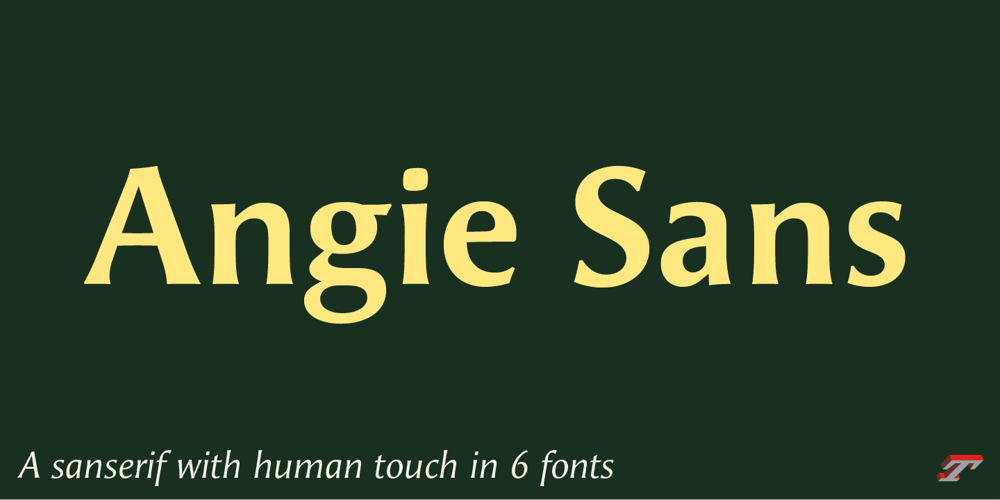
Angie Sans Std
Angie Sans Std font
Angie Sans Std Font Family was designed by Jean François Porchez and published by Typofonderie. Angie Sans Std contains 6 styles and family package options. A sanserif with human touch in 6 fontsAngie Sans is a low contrast incised sans serif sharing some similarities with Optima by Hermann Zapf and Pascal by José Mendoza, both created at the end of the 50’s. The later, feature an italic not published by the initial foundry who launched Pascal. Angie Sans follow same path with its italic based on Chancery forms from the Renaissance, narrower than the roman shapes.With its capitals based on Roman proportions, lowercases featuring open counters, strong horizontals, Angie Sans is a legible typeface. The manual gesture is present in Angie Sans, which offer the plastic qualities such as warmth, craftmanship and humanity. Angie Sans is an Incised Garalde who works well for display as text settings. Available in 6 series, with matching italics, Angie Sans will work well in design projects where delicate and human touch is required.Angie SansMorisawa Awards 1990